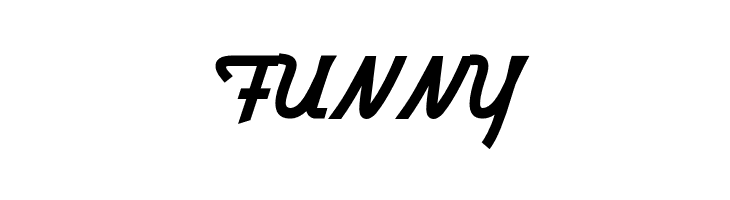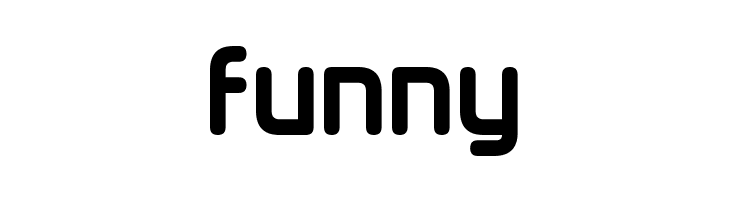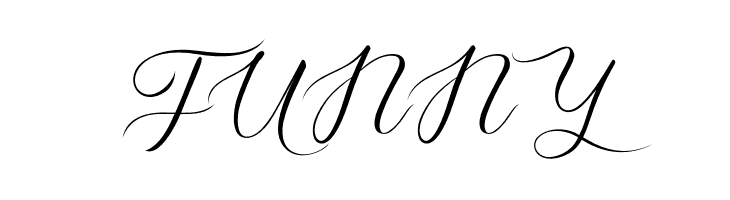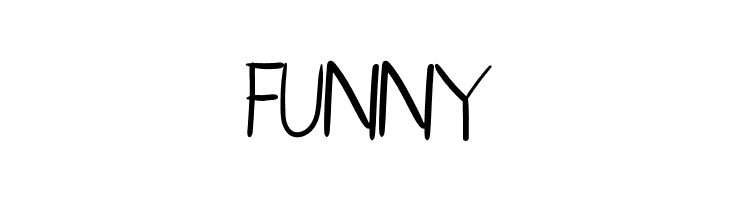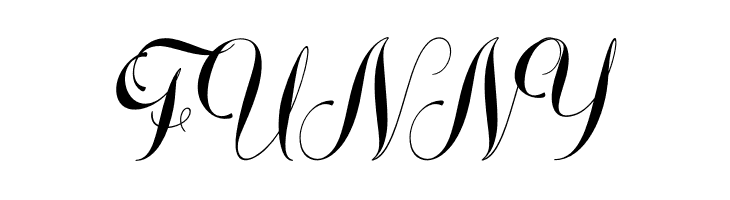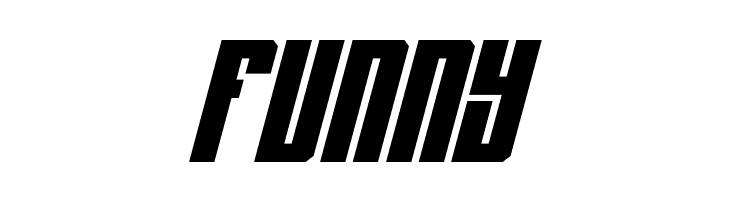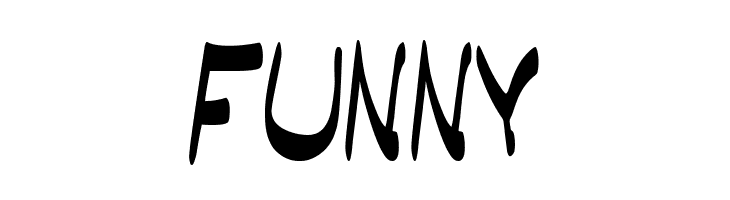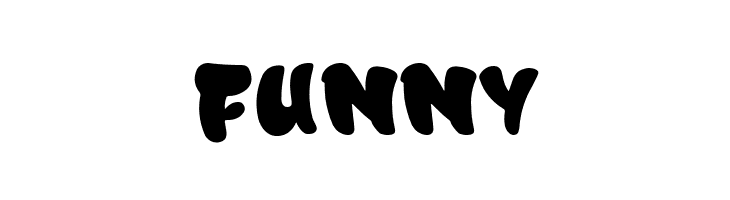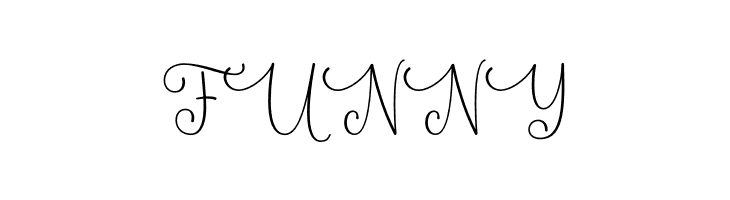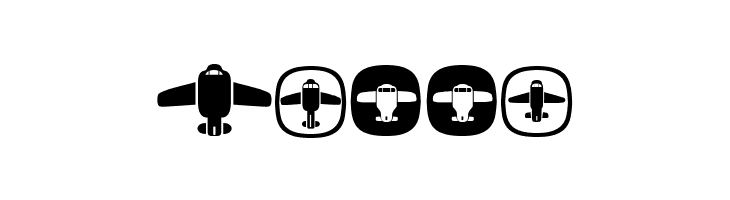
• AIRPLANE-Hollow-Inverse
A futuristic, geometric font with hollow, outlined characters and sharp edges.
• Airplanes Regular
A decorative font featuring airplane silhouettes as characters, ideal for thematic designs.
• AirplaneScript
A bold, cursive script font with elegant loops and a natural flow.
• Airport Icons
Bold, high-contrast airport-themed pictogram set.
• Airside Sans Regular
A modern, condensed sans-serif font with a geometric structure.
• AirstreamNF
A bold, cursive font with a dynamic and flowing style.
• Airstrip Four
A modern, geometric font with rounded edges and consistent stroke widths.
• Airthan-Age
An elegant script font with flowing, cursive letterforms and intricate swashes.
• Airthay - Demo Versi
An elegant script font with flowing, cursive letterforms and a sophisticated style.
• Airtiris Scooper Bold
A playful, bold font with rounded, bubbly characters.
• airwaves
A modern, rounded font with a playful and bold style.
• Aisbum Slashey
An elegant and flowing script font with graceful curves and decorative flourishes.
• Aisha Blush
A lively, handwritten font with a casual and friendly style.
• Aisha Demo
An elegant, flowing script font with intricate loops and swirls.
• Aishafah5Regular
A playful, handwritten font with fluid strokes and a modern artistic flair.
• AishaScript
A bold, cursive font with decorative swirls and high contrast.
• Aishiteru Lover
An elegant script font with flowing, cursive style and intricate flourishes.
• AISSUR
A bold, geometric font with a modern stencil-like appearance.
• Aistterik
An elegant, flowing script font with a handwritten aesthetic.
• Aisy Khadijah
An elegant script font with flowing curves and decorative swirls.
• Aisyah